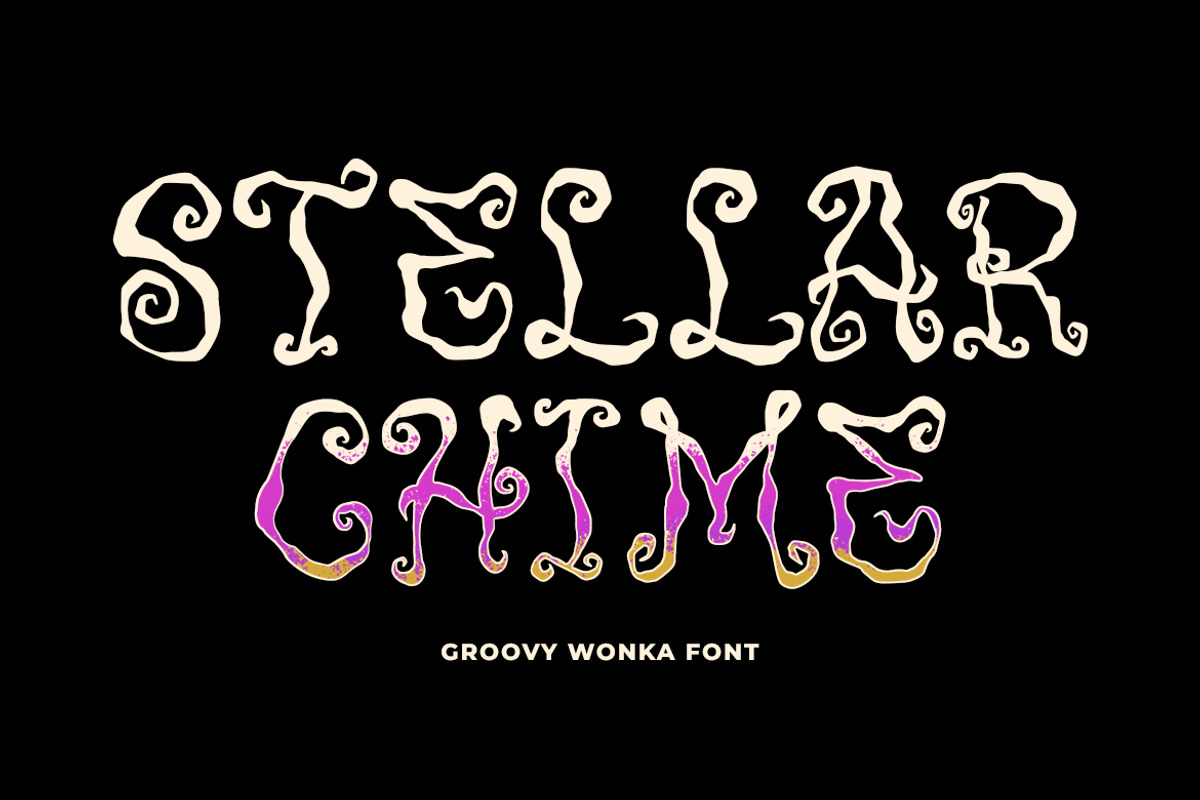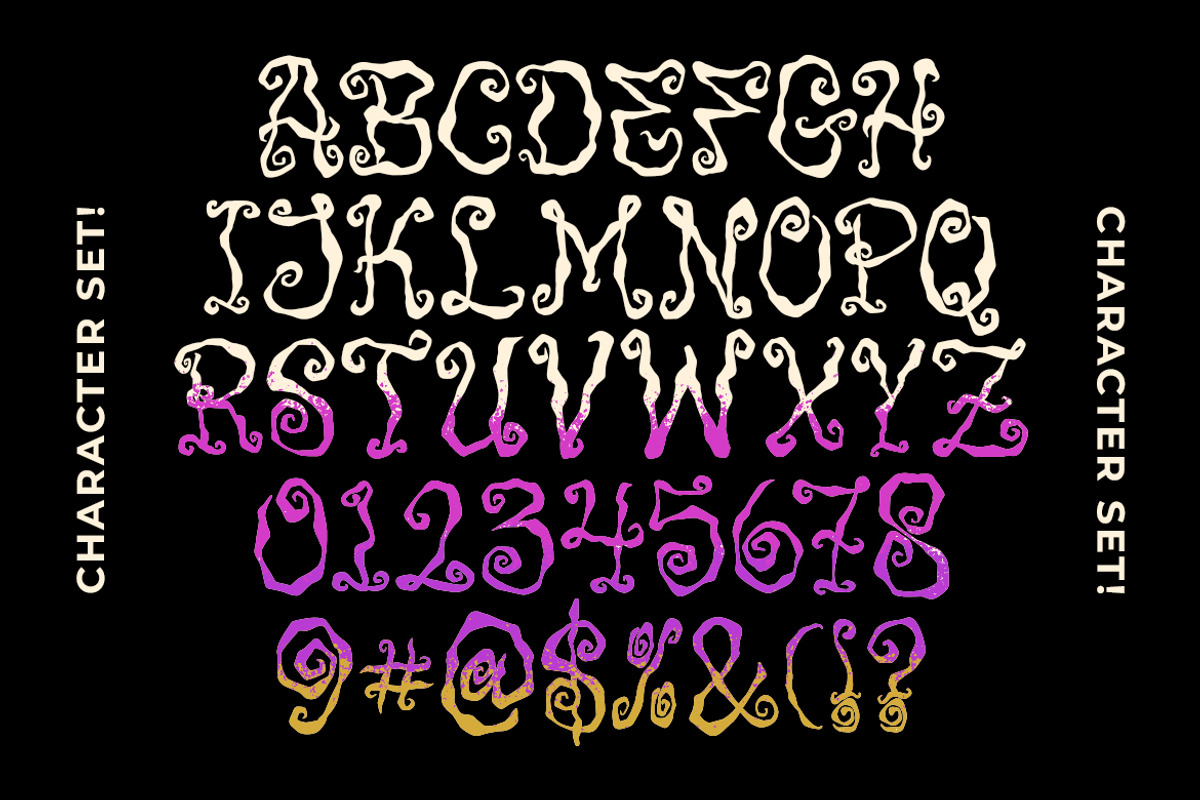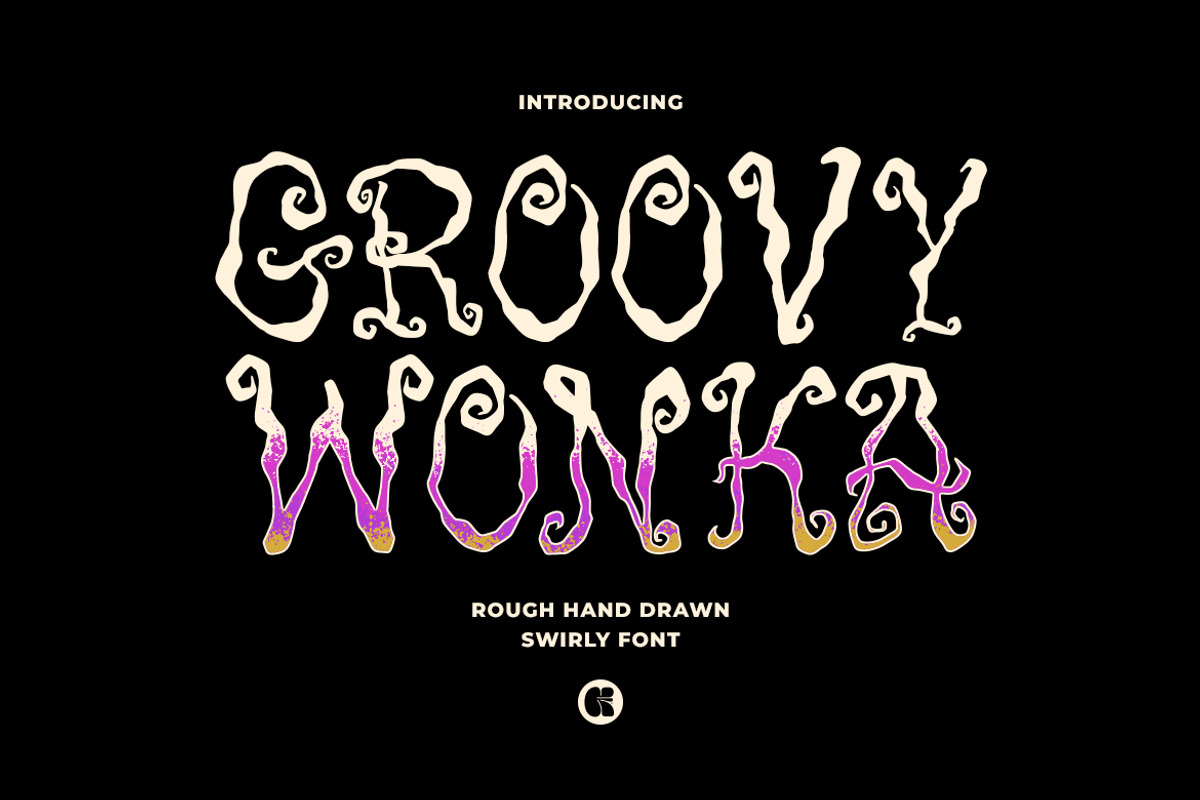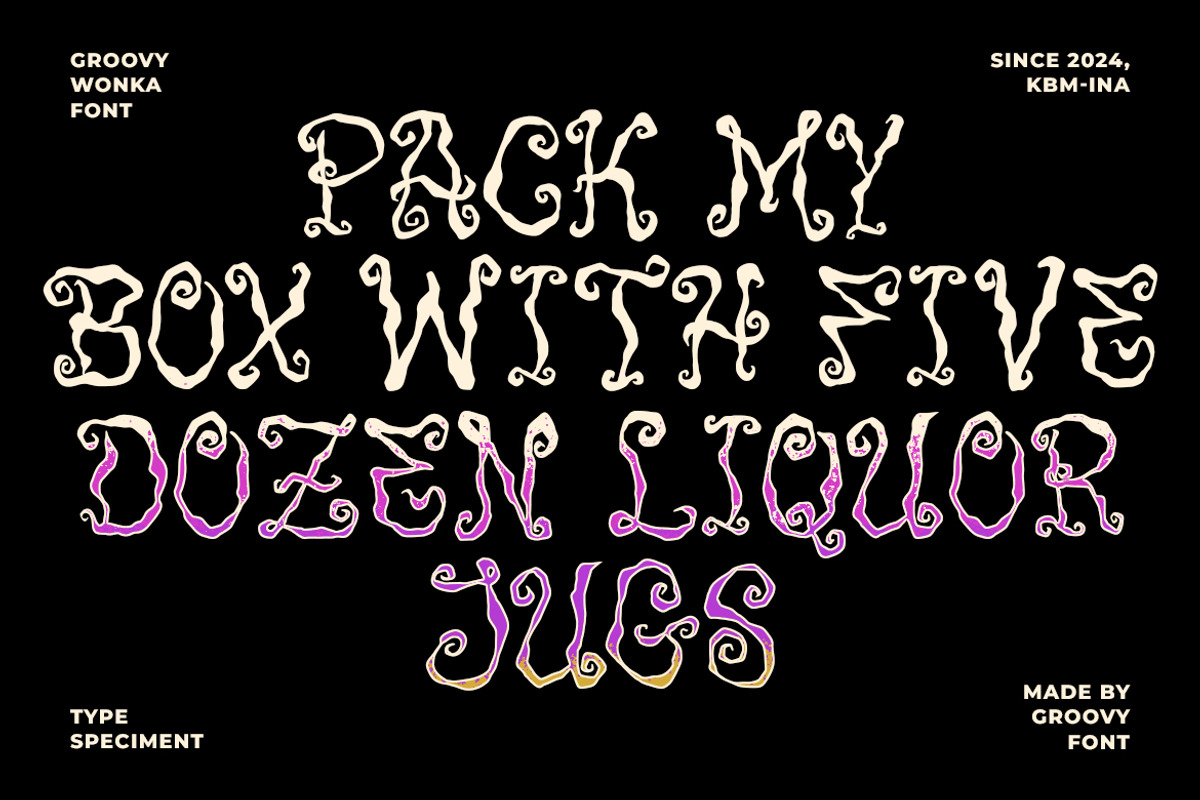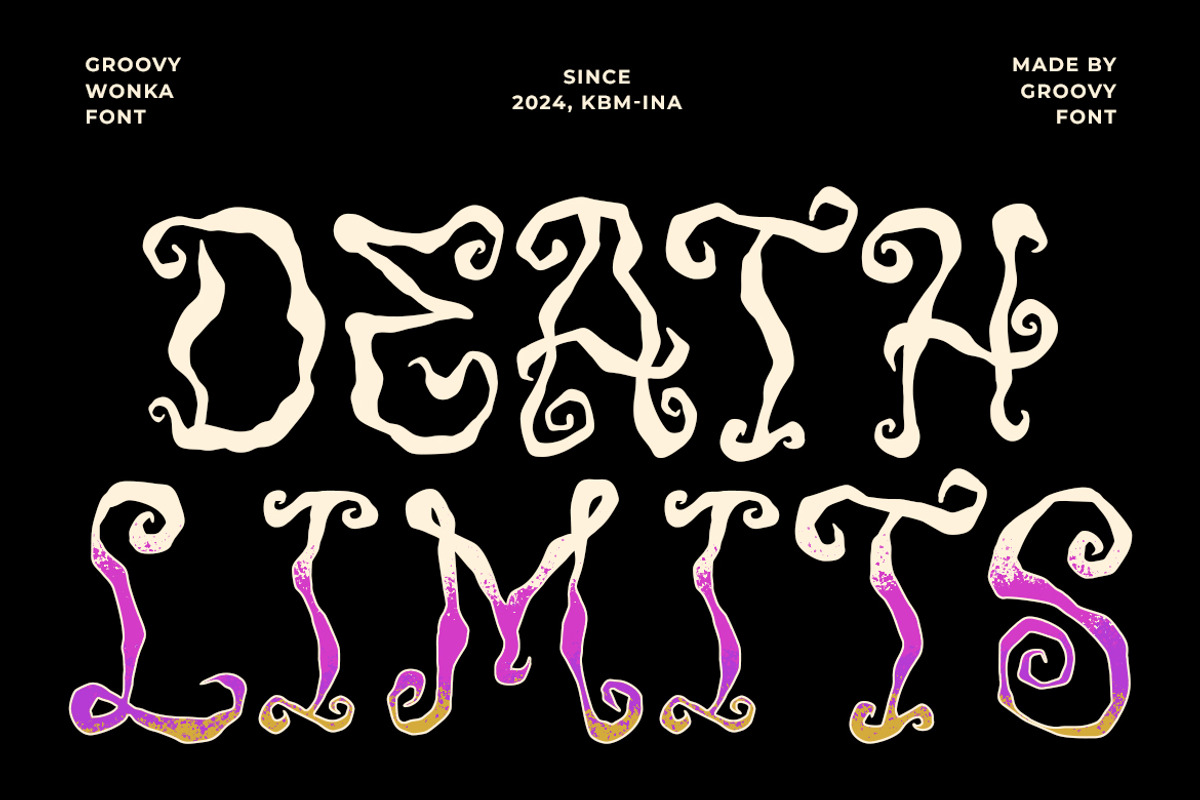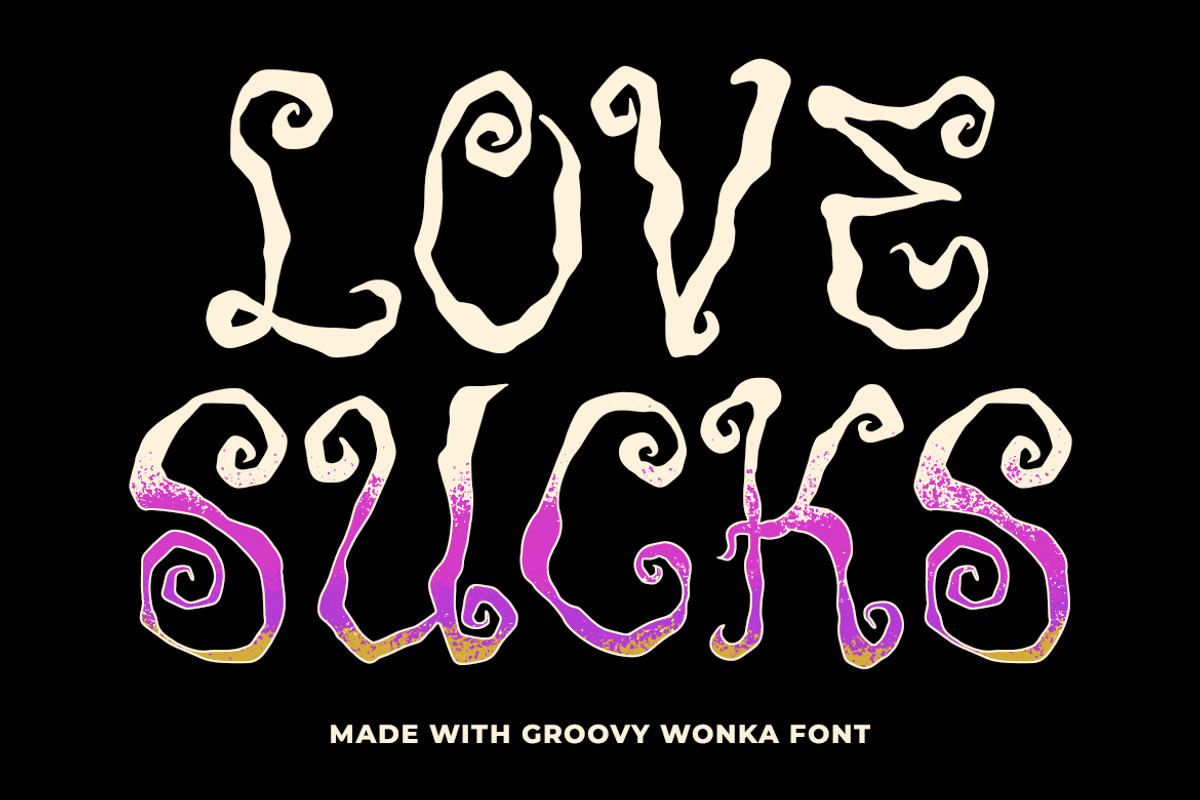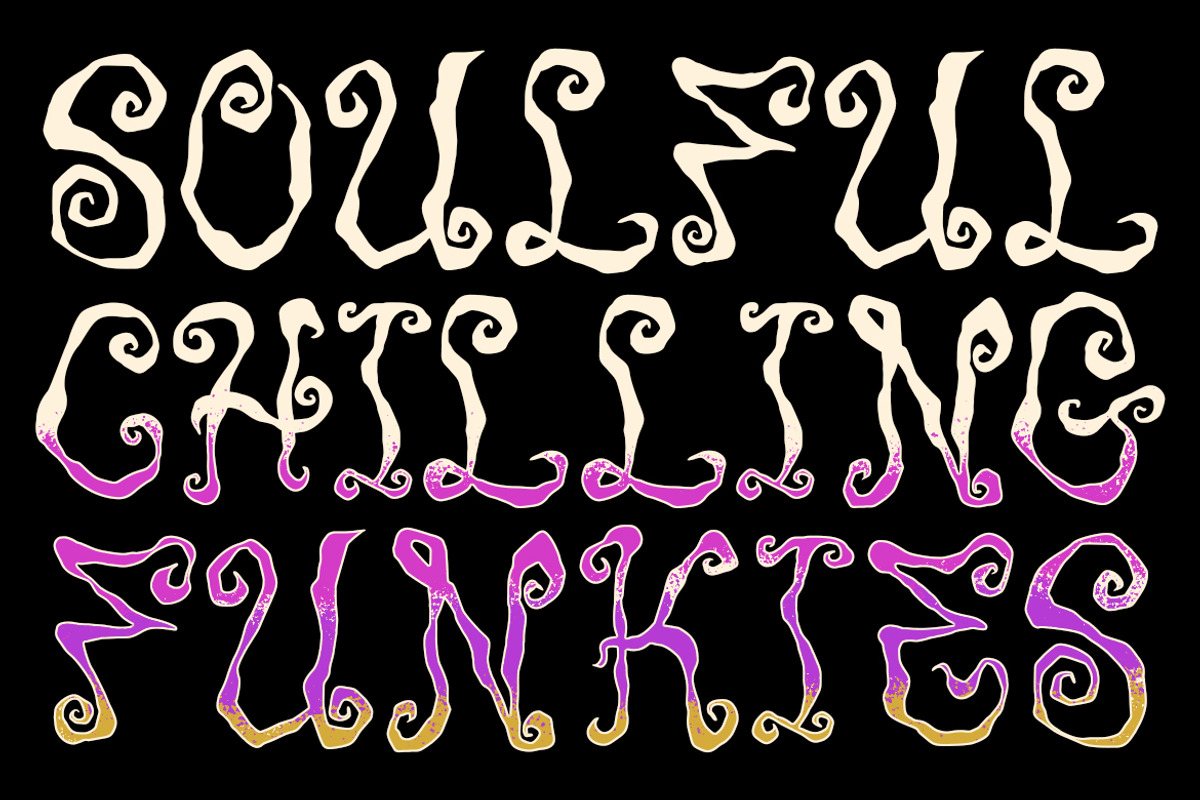
GF Wonka Rough Handdrawn Swirly Font
Groovy Wonka is a rough, hand-drawn, swirly font designed specifically for Halloween-themed design projects.
Its unique style and playful elements make it perfect for adding a spooky and fun vibe to any design.
- Uppercase, Lowercase, Numeral, Punctuation & Multilingual.